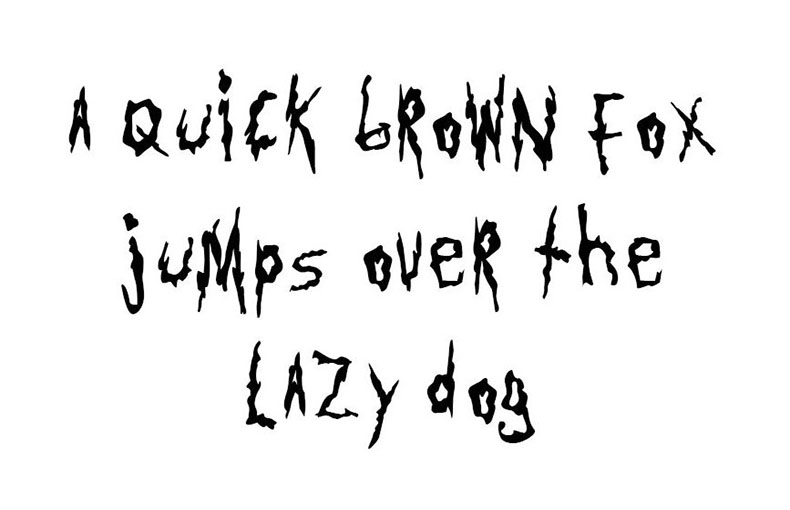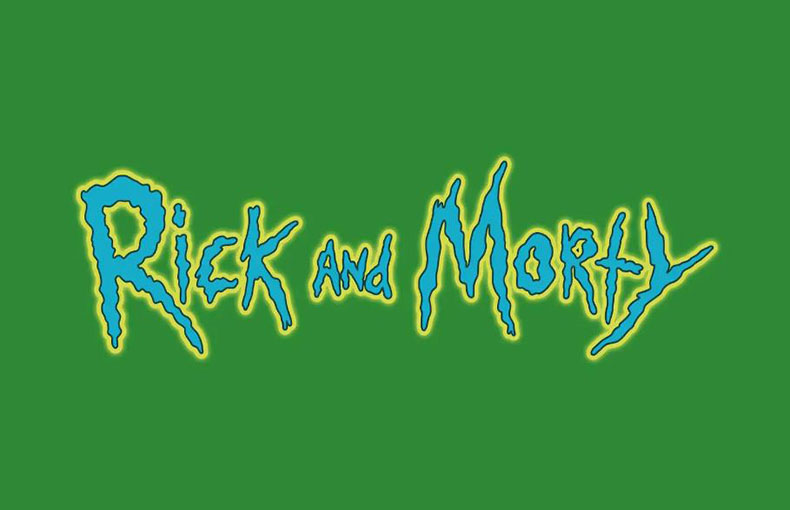
Introducing Rick and Morty Font! Rick and Morty is an American science fiction comic book series by Justin Roiland and Dan Harmon first published on December 2, 2013.
The font used in the cover logo of this manga was very attractive and became highly sought after. This is the reason why we present to you today with this font.
The Rick and Morty typeface for the cover is called The Get Schwifty Font. wealth. Jonizaak designed the font. It belongs to the Fancy Horror font family because of its rough and immature writing.
With uppercase, lowercase, and numbers and 62 characters, “Get Schwifty Font” looks different. Jonizaak crafted this script with something more than just danger that makes typography elegant and interesting. The Misfits font is similar to this one.
Animated book covers, mural designs, brochure layouts, animated covers, and logos may all be created using this font. It is also appropriate for designing postcards, book covers, invitations, and magazine layouts. You can utilize this font to give tremendous success to your project designs.
What is the Rick and Morty font?
The Rick and Morty font is a bold, еyе-catching sans-sеrif font with thick, roundеd strokеs and a slightly condеnsеd width. It is thе font usеd in thе logo and promotional matеrials for thе popular animatеd show Rick and Morty.